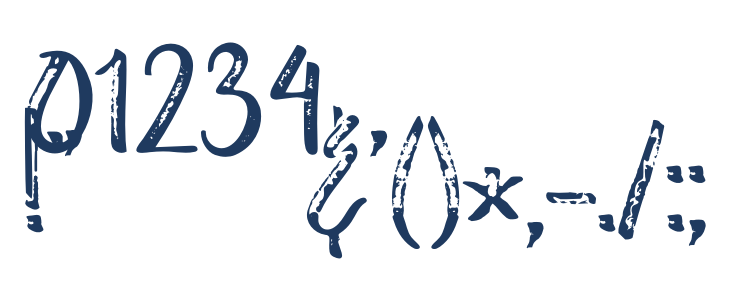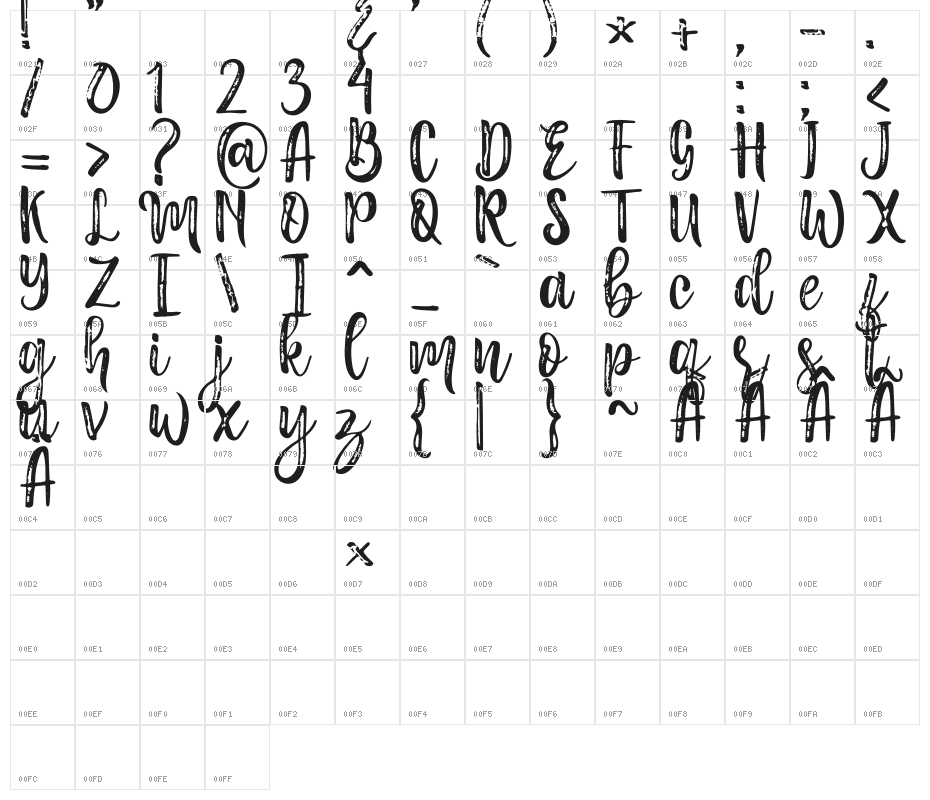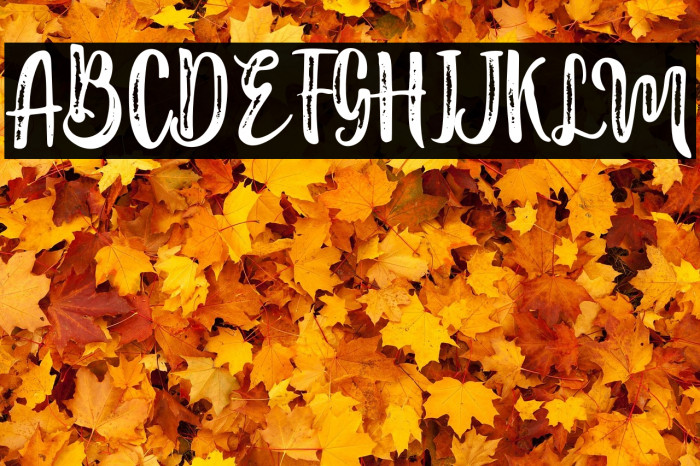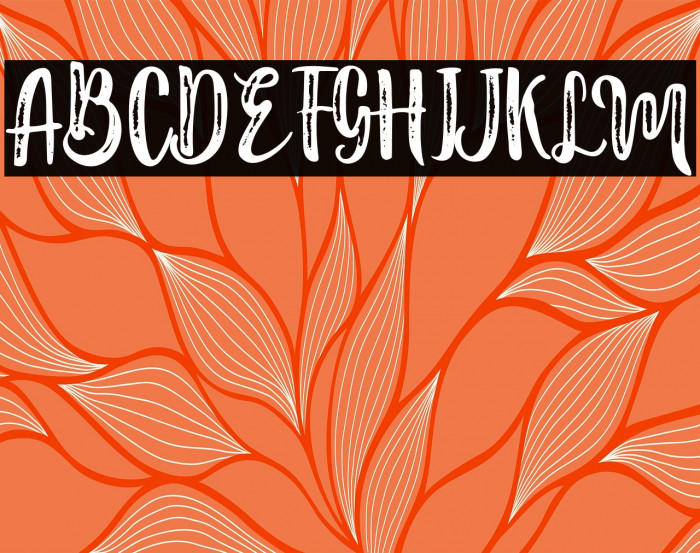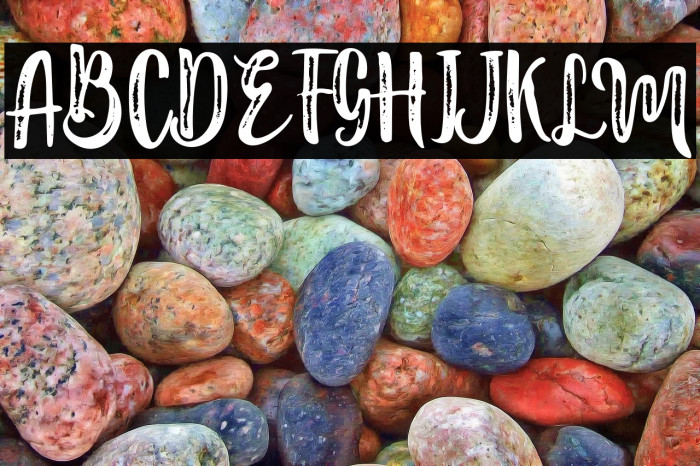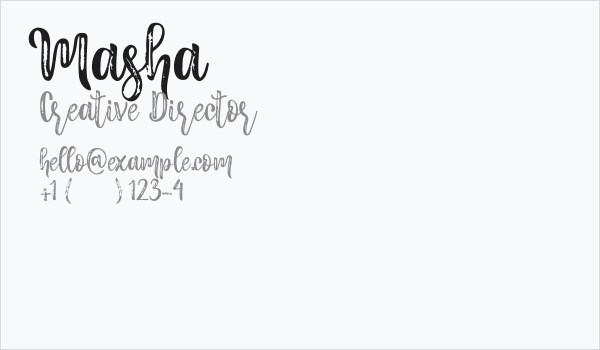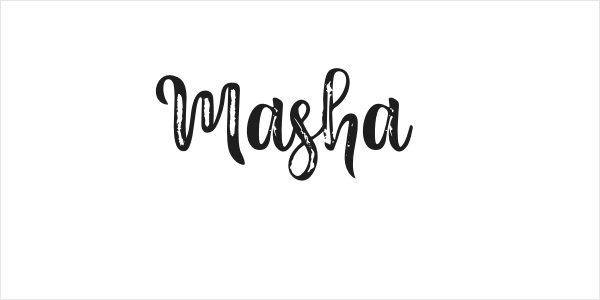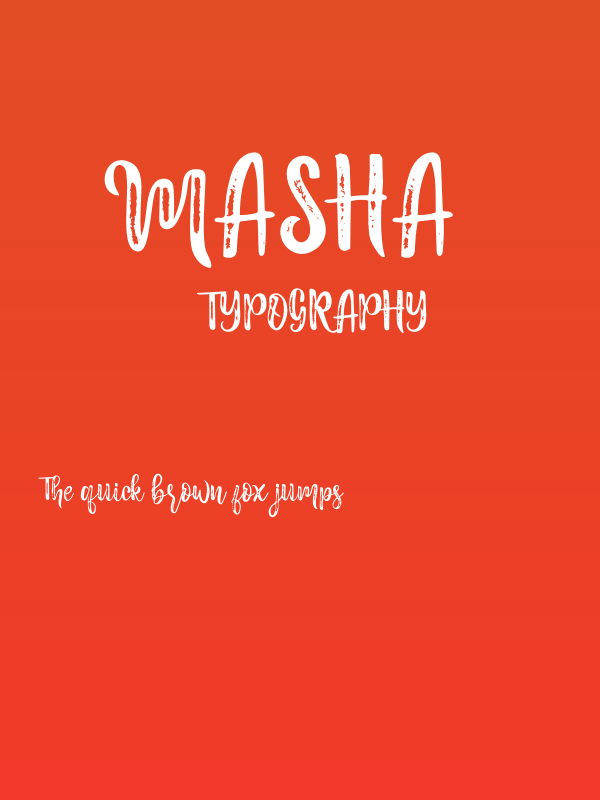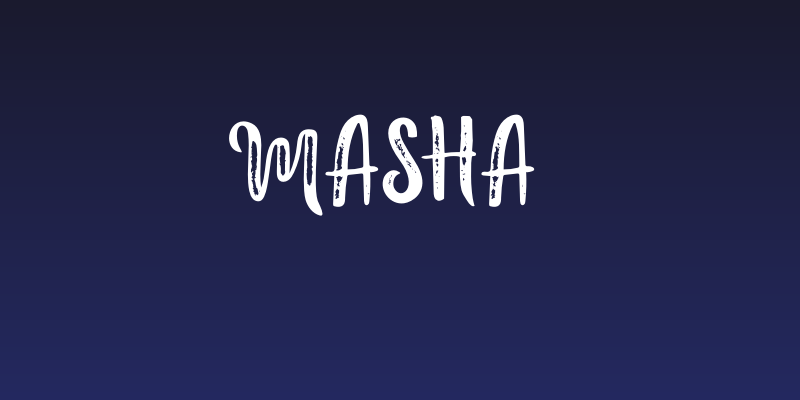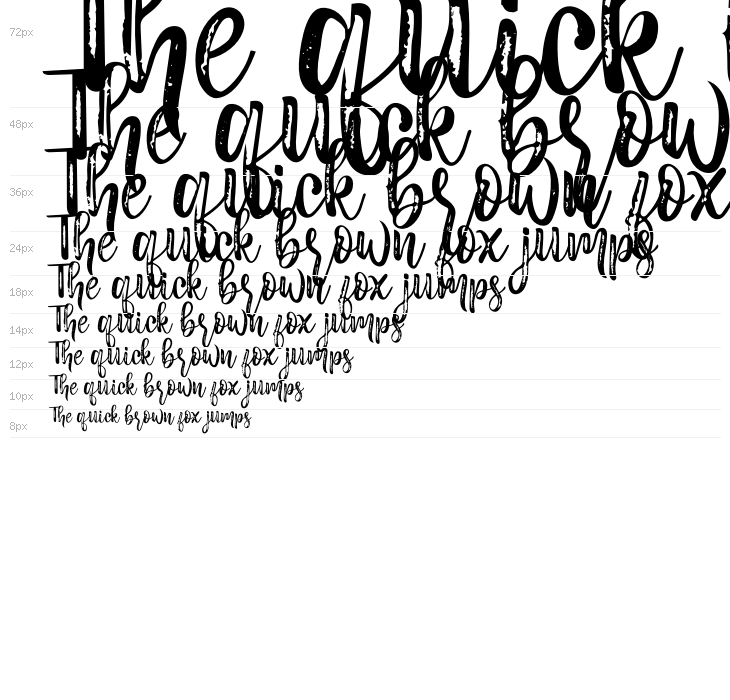
Masha Font
Masha Description
This font features a bold, expressive style with a hand-painted appearance. The characters are designed with a brush-like texture, giving them a distressed and artistic look. The uppercase letters are tall and slightly narrow, while the lowercase letters maintain a consistent flow with a casual, cursive influence. The numbers and special characters follow the same textured style, adding to the overall cohesive design. This font is ideal for projects that require a creative and dynamic touch, such as posters, branding, and artistic designs.
| Overall Style | Artistic, Expressive, Hand-painted |
| Proposed Projects | Ideal for posters, branding, artistic designs, and creative projects. |